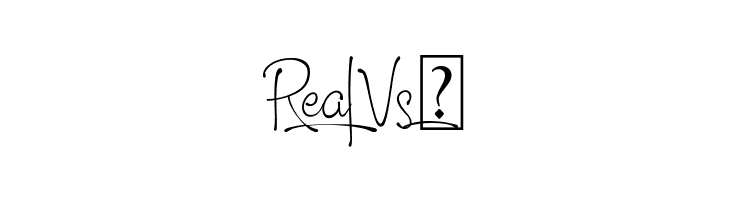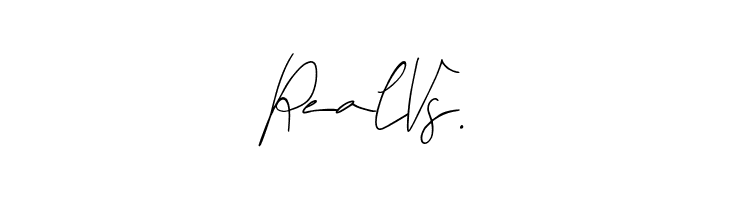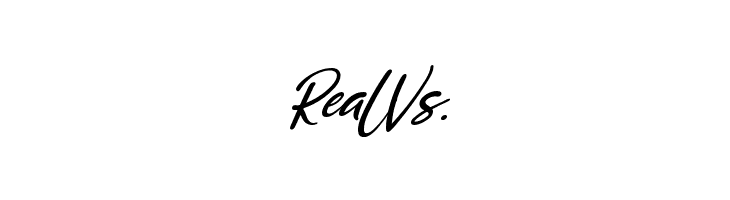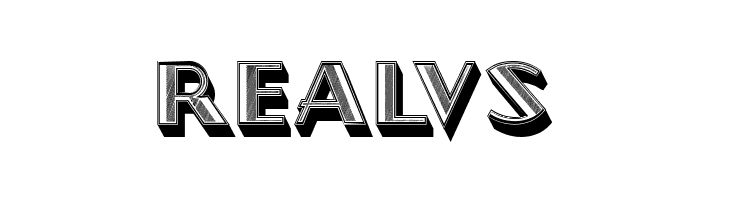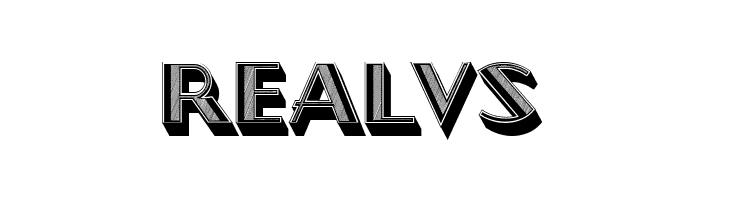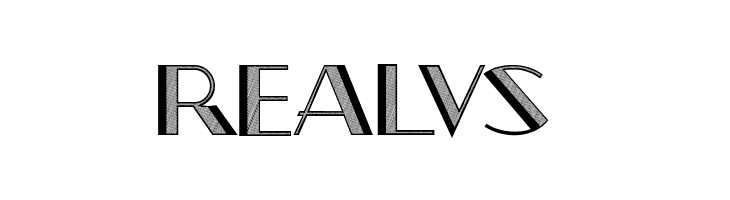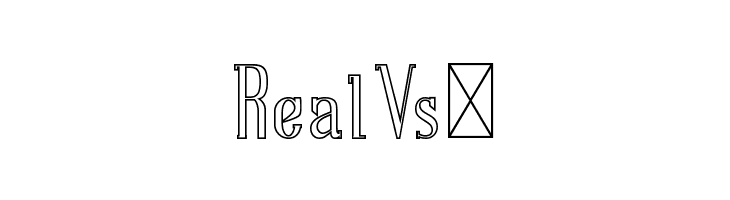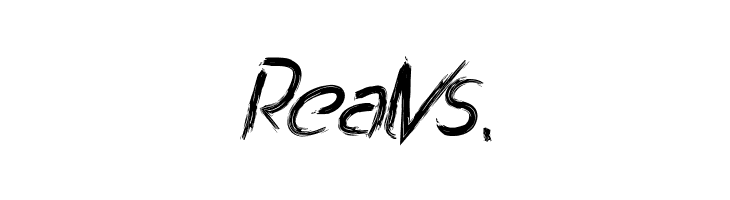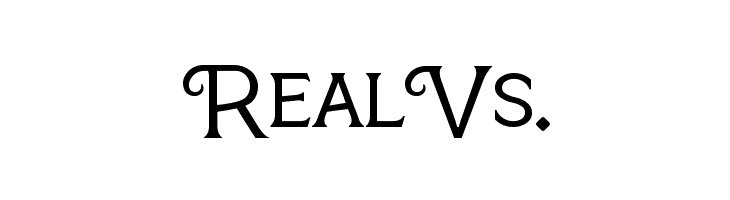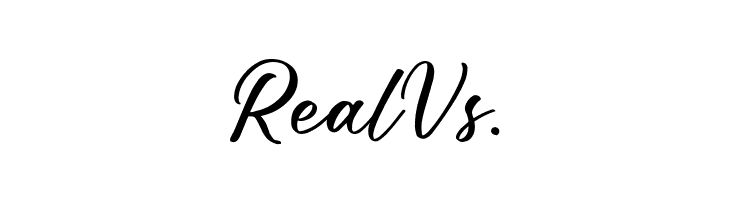
A bold, geometric font with an industrial and modern feel.
Distressed, bold stencil font with a military-inspired look.
A lively and expressive script font with a playful handwritten feel.
A bold, futuristic font with a three-dimensional, tech-inspired design.
A modern, bold sans-serif font with geometric precision and high legibility.
A bold, modern sans-serif font with clean lines and uniform stroke widths.
A modern, geometric font with rounded edges and uniform stroke width.
A bold, angular font inspired by ancient runic alphabets.
A bold, playful font with thick, rounded characters and a whimsical style.
A bold, modern sans-serif font with uniform stroke width and geometric design.
A bold, italicized sans-serif font with a modern and clean design.
A modern sans-serif font with an italic slant, offering a sleek and professional appearance.
A modern sans-serif font with geometric shapes and uniform stroke width.
A playful, tall handwritten font with a casual and organic feel.
Casual handwritten font with a playful style.
A bold, dynamic script font with flowing, cursive characters and decorative details.
A bold, extruded, hollow font with a three-dimensional, geometric style.
A bold, 3D extruded font with a vintage yet modern appeal.
A modern, geometric font with bold and thin strokes, featuring a 3D effect.
A refined, high-contrast font with elongated, elegant letterforms.
A decorative, handwritten font with elongated, flowing lines and intricate loops.
A whimsical, handwritten font with elongated, flowing lines.
A whimsical handwritten font with tall, narrow letters and playful curves.
A fluid, handwritten style with dynamic strokes and a casual, artistic flair.
A dynamic and elegant cursive script font with a flowing style.
A bold, brushstroke-style font with dynamic and expressive characters.
A flowing, elegant script font with smooth, cursive strokes.
A bold, three-dimensional font with a vintage, shadowed style.
A classic serif font with elegant and bold characteristics.
A playful, hand-drawn style font with bold, rounded letterforms.
A cursive, elegant font with flowing, sophisticated characters.
A fluid and elegant handwritten font with smooth, flowing lines.
A fluid, handwritten font with a casual and artistic style.